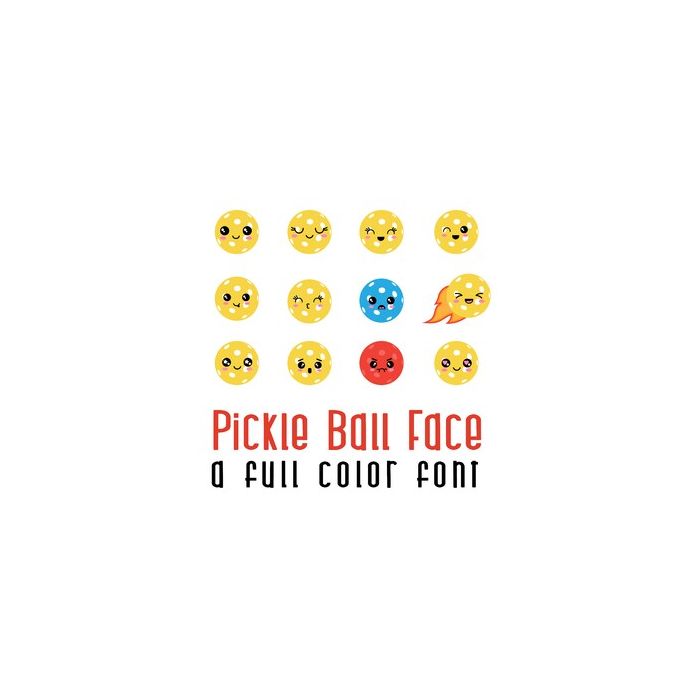
This adorable full-color doodlebat font features 26 emoji pickle balls and paddles. Perfect for cards, crafts, gifts, decor, scrapbook pages, planner stickers, and more! Letter Z is an empty paddle to place balls on.